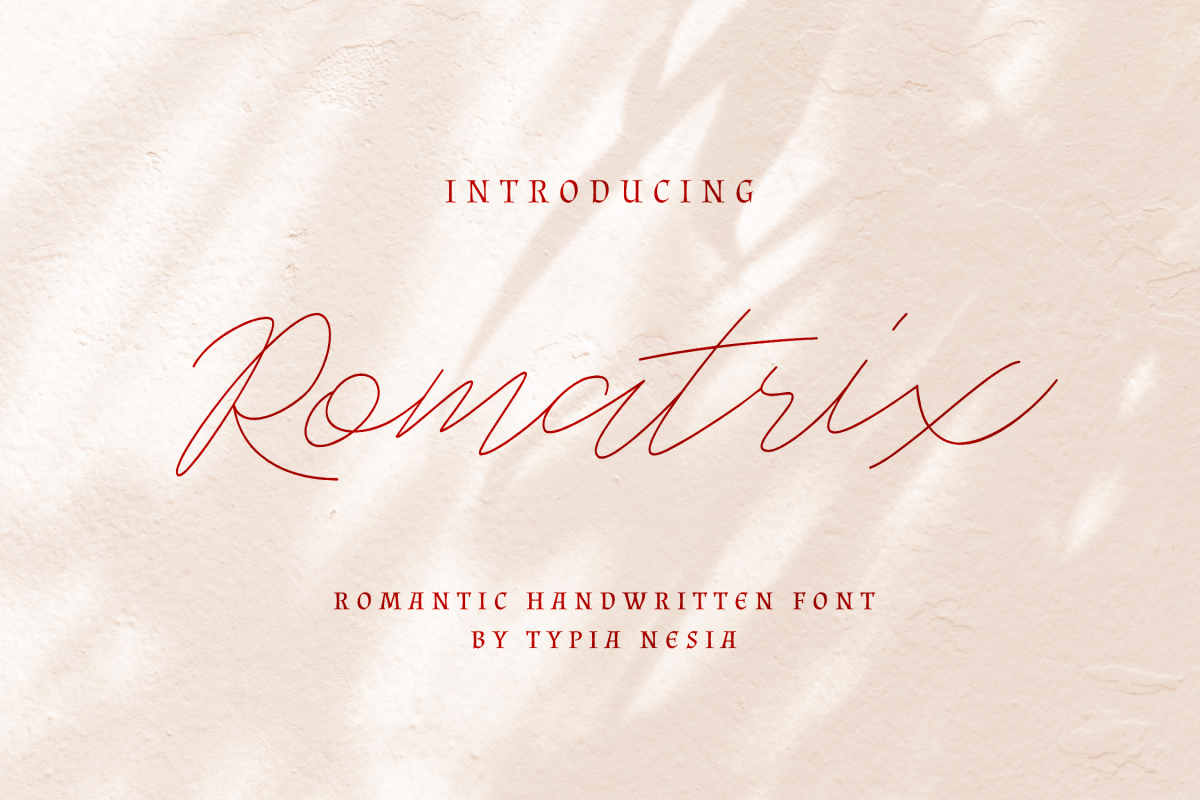
Romatrix is a Romantic Handwritten Font
The imperfect flow and easy handwritten style works perfectly on invitations, blog headers, branding, art quote, book / cover Title, and so much more!
Romatrix